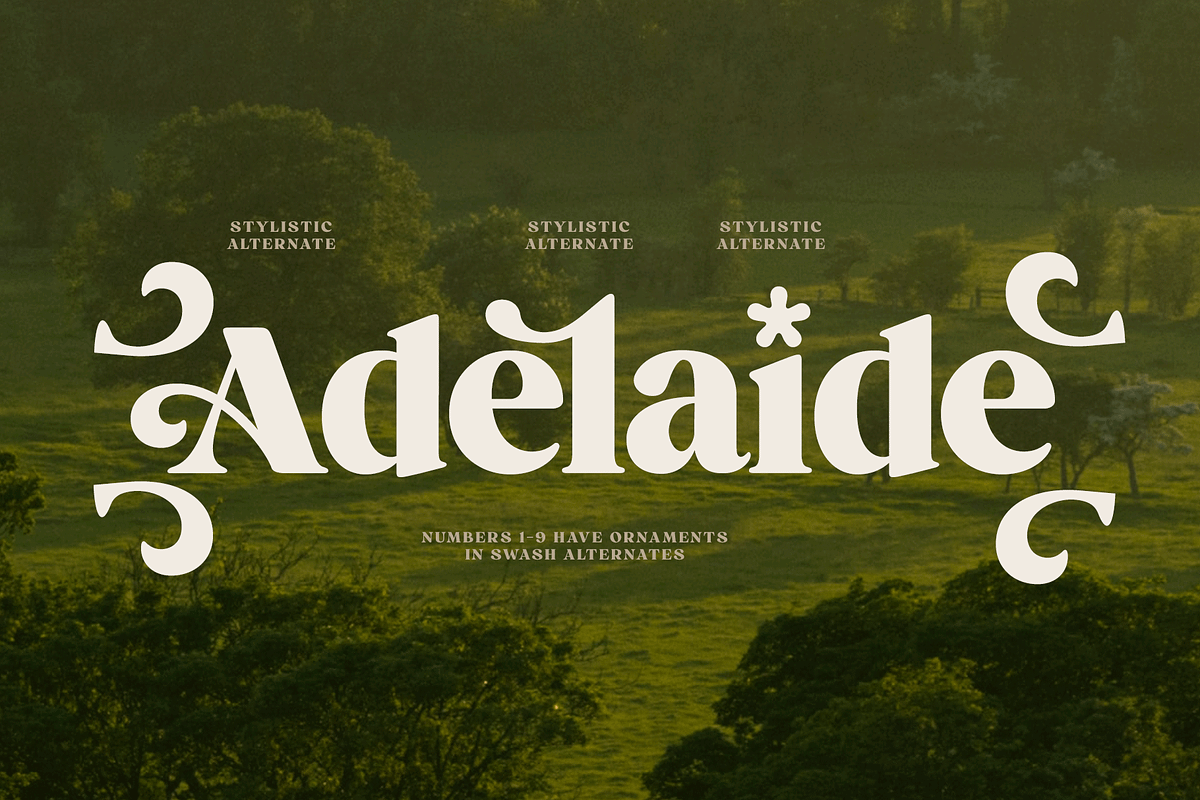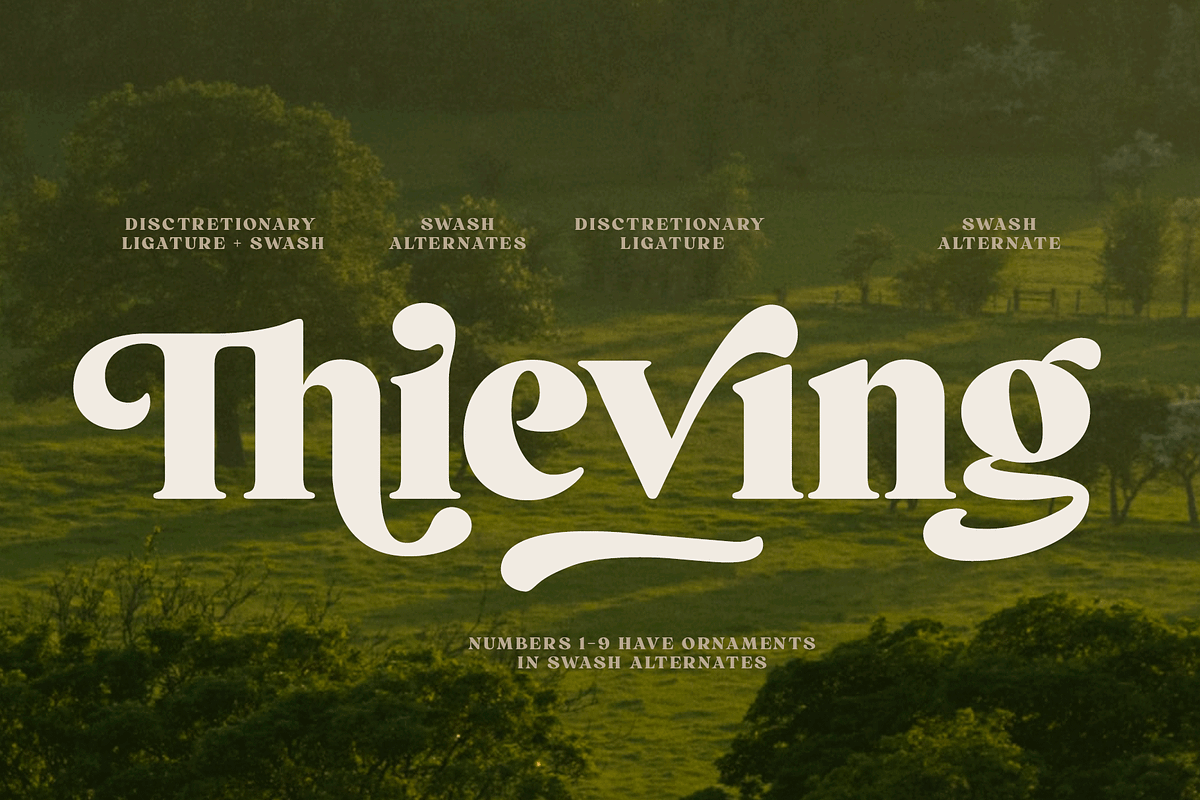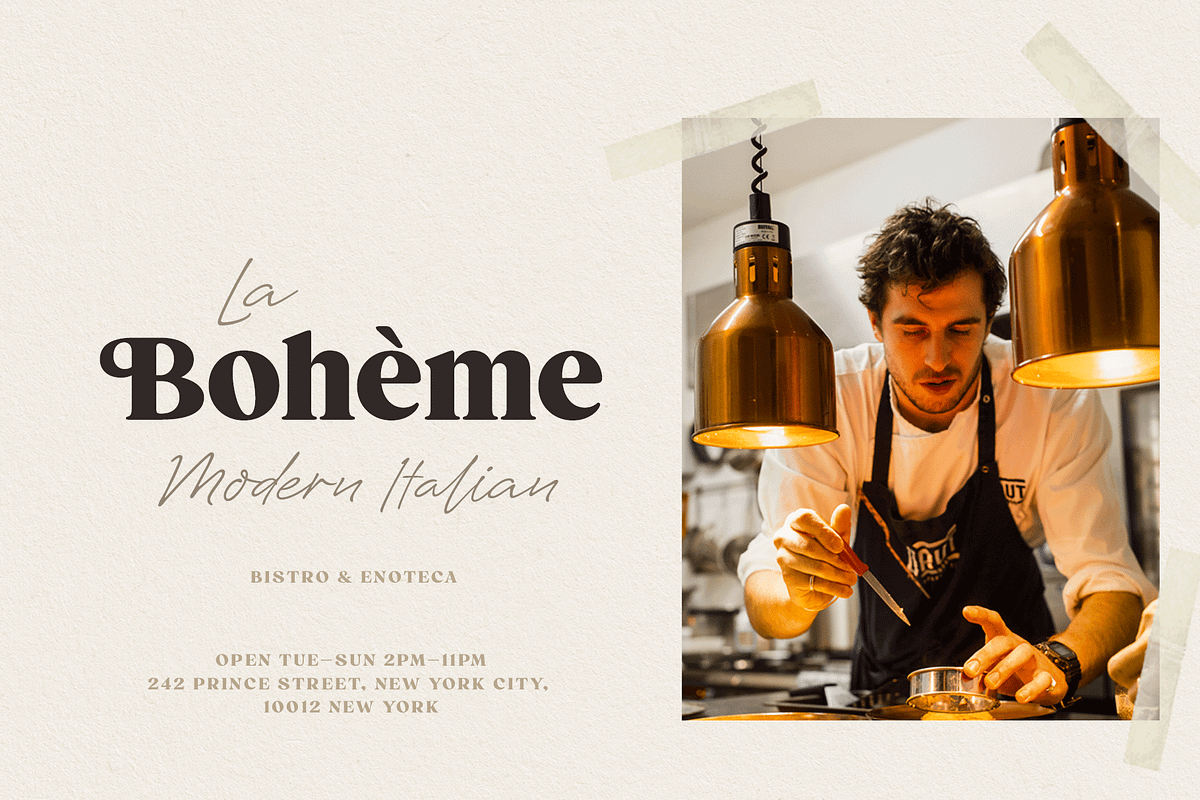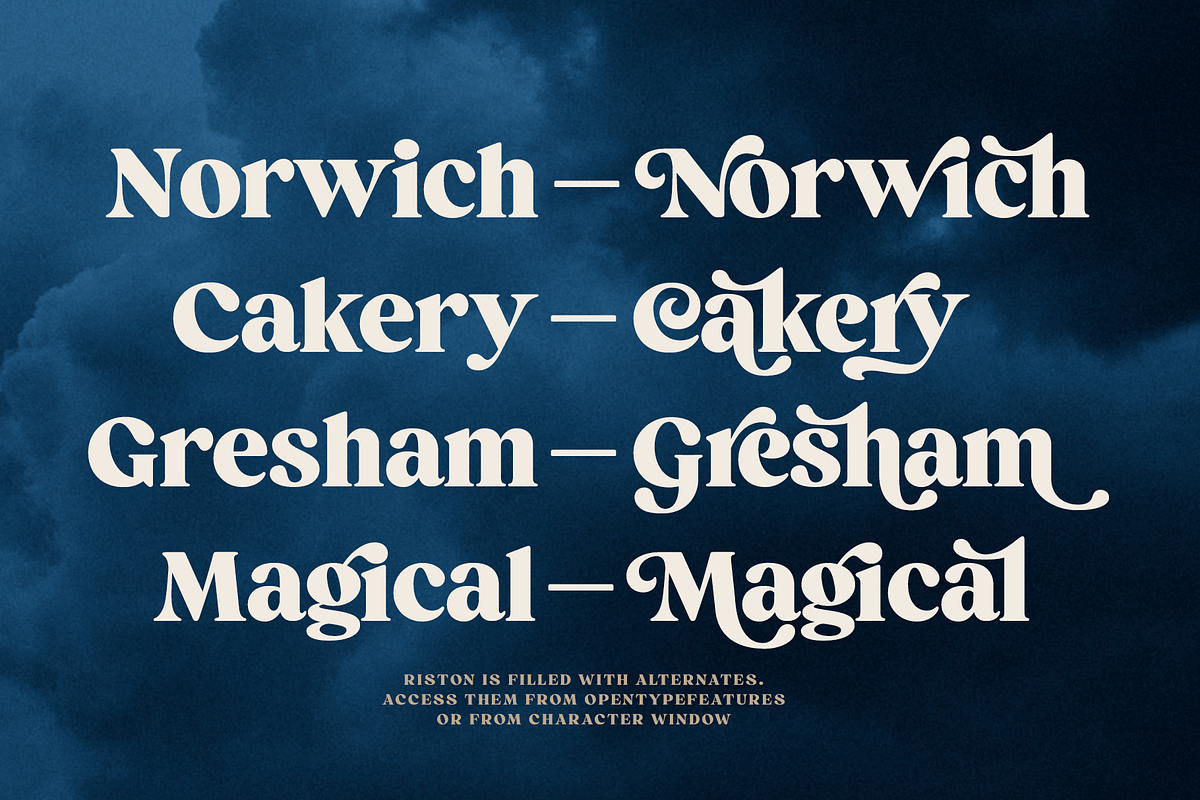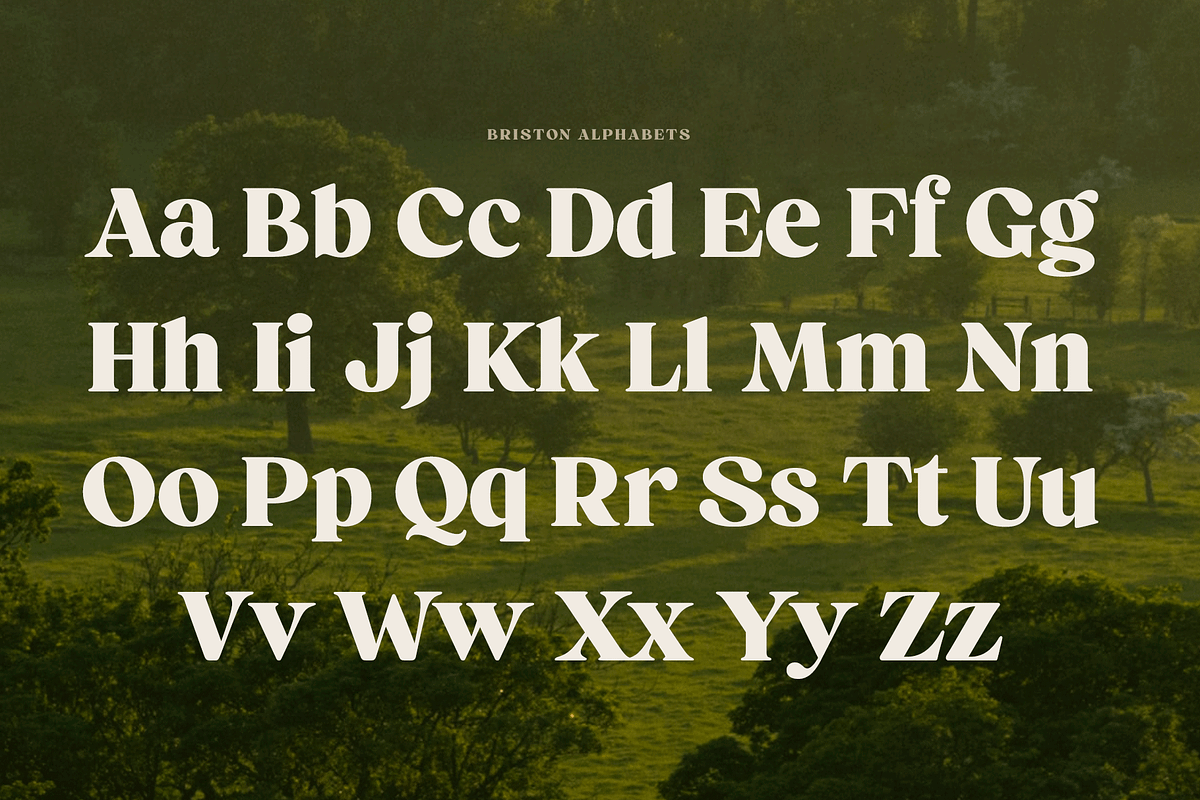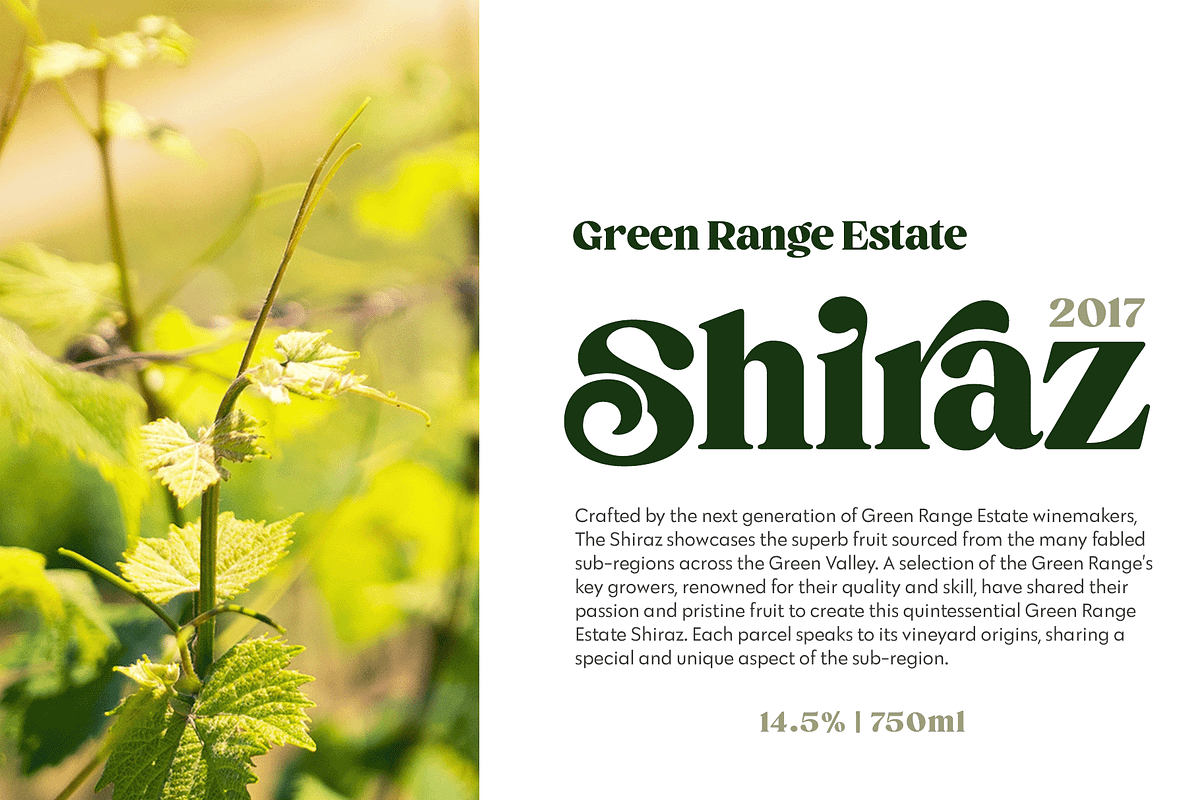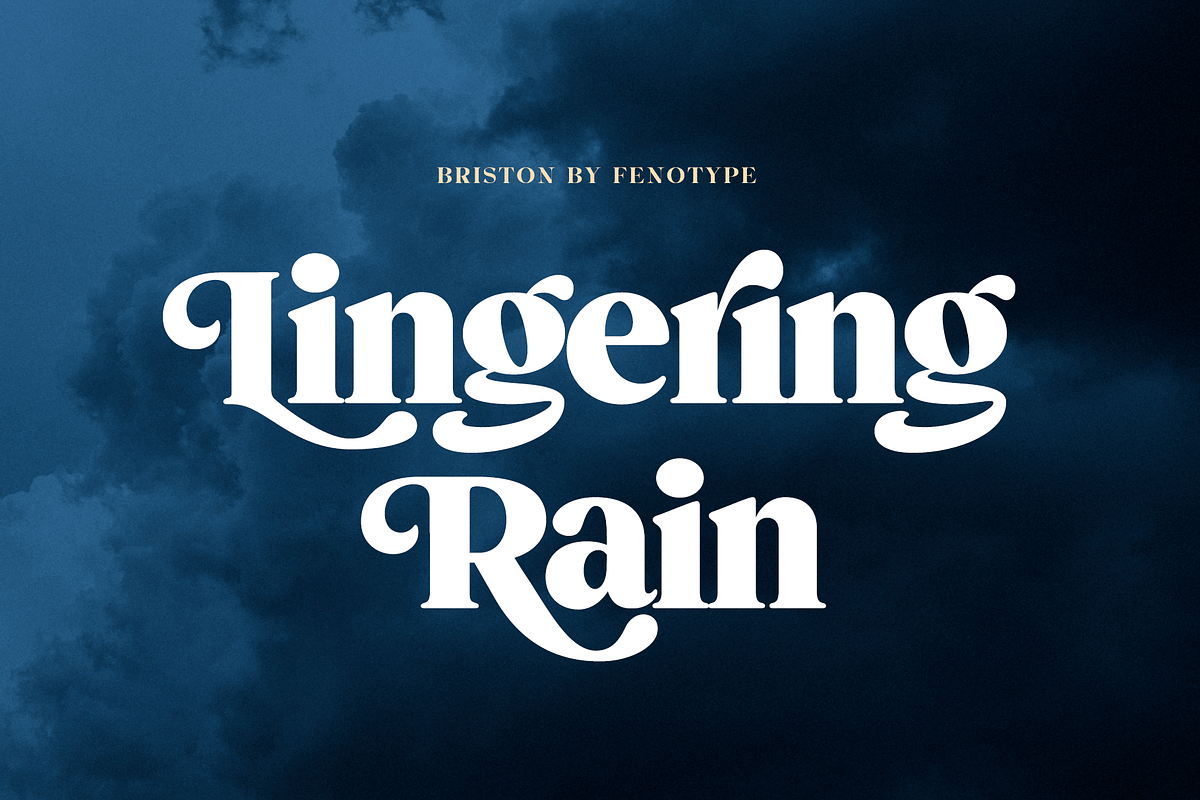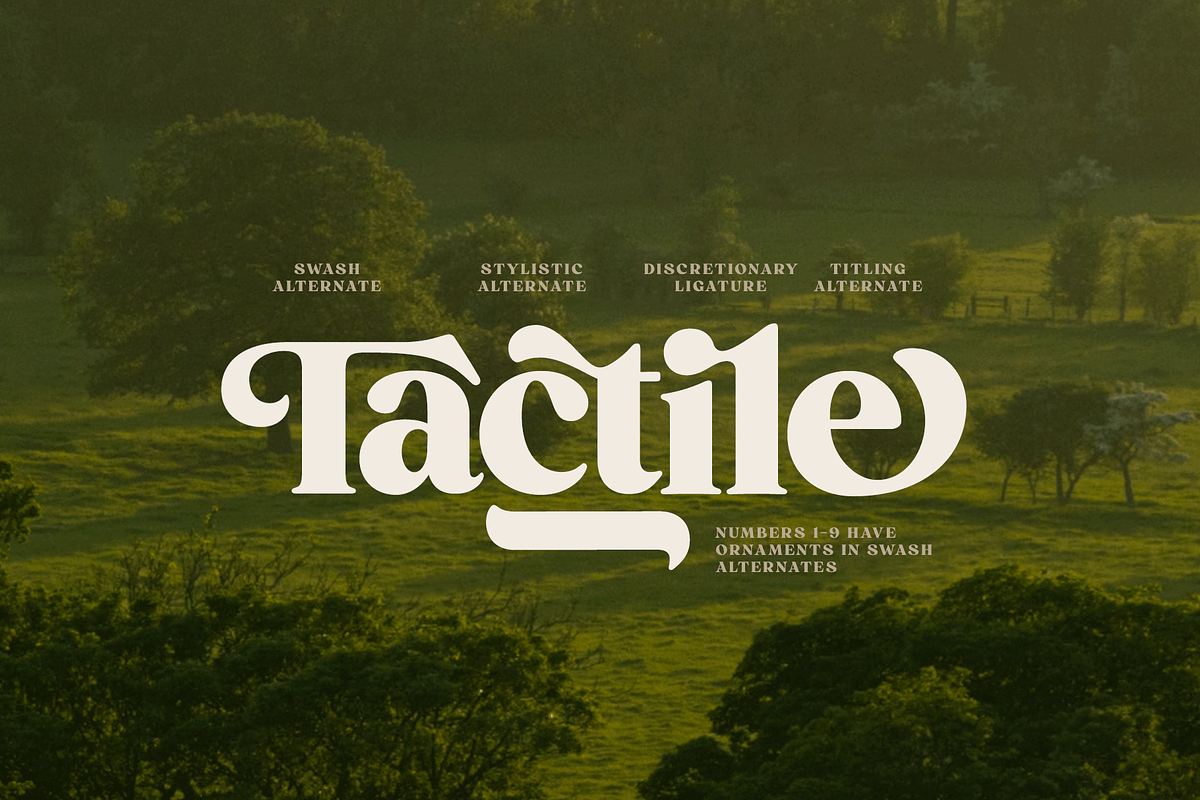
Briston is a bold vintage style serif font with strong character and soft features. Briston is equipped with Swash, Stylistic and Titling alternates as well as with Standard and Discretionary Ligatures. All these features can be accessed by OpenType controls or straight from Character or Glyphs window. The font is PUA encoded so you can use the extra glyphs in most graphic design softwares. In addition Briston has a small set of ornaments and strokes that are found by turning on Swash -feature and typing characters 1-9.
In addition: if you can't use OpenType features, you can use additional Briston Swash, Briston Salt (Stylistic Alternates) and Briston Titl (Titling Alternates) to access the alternates. In these versions you'll find the Alternate in question in place of the Standard Character. So - if you type "A" with Briston Swash, you'll get the Swash A.
Briston is and efficient typeface for headlines, logos and display use. You can also try using Briston all caps in really small sizes by adding some spacing.